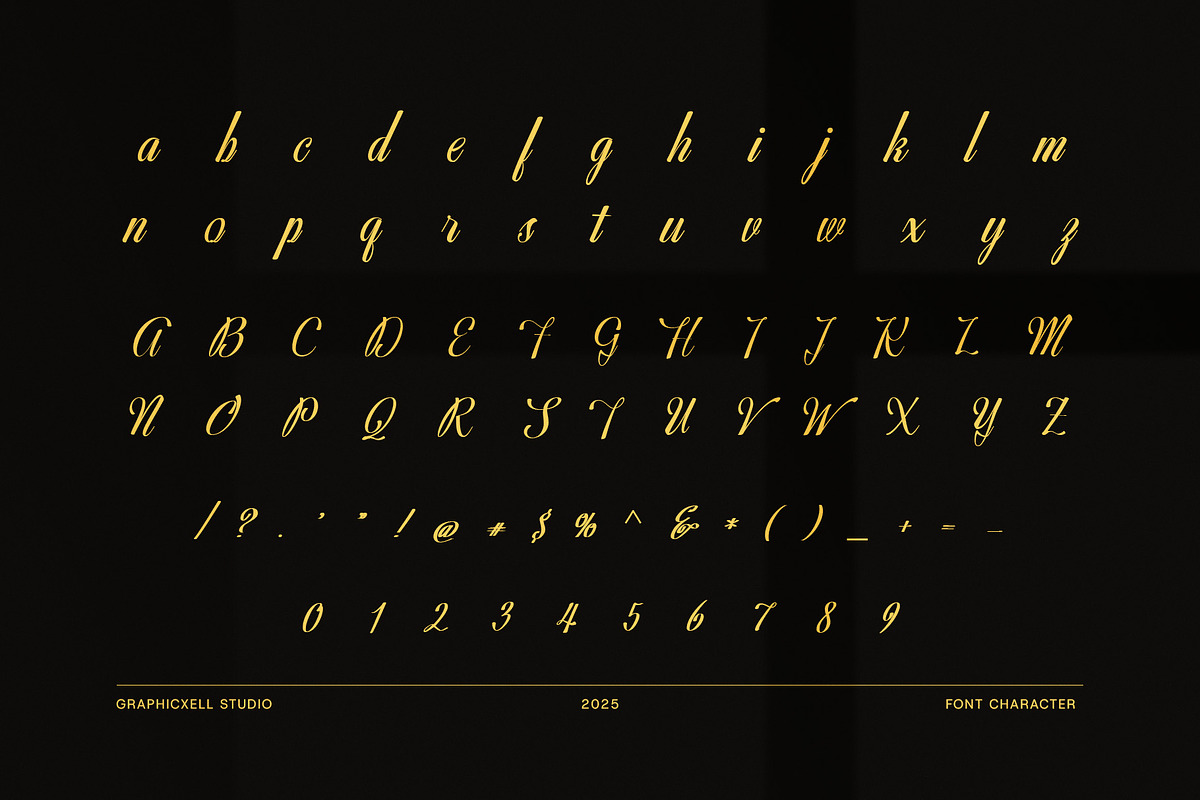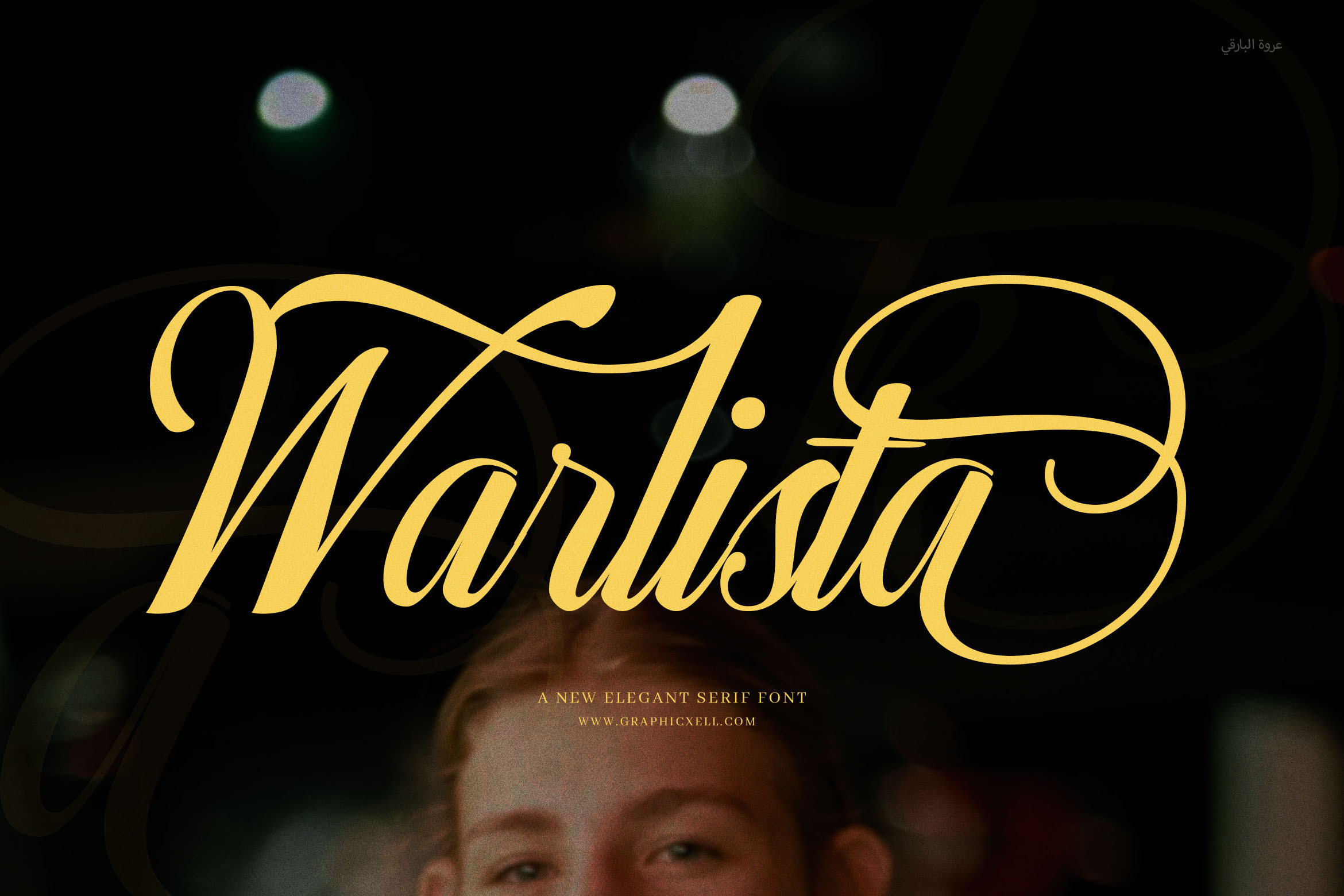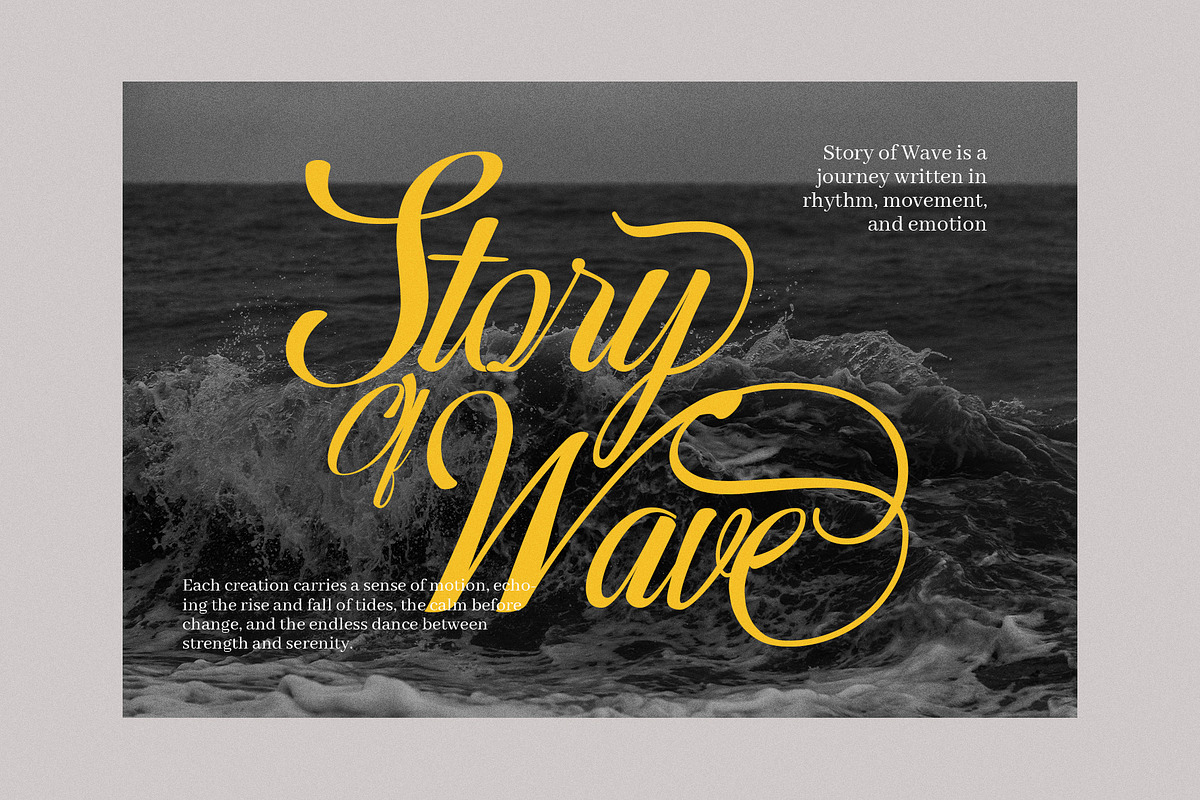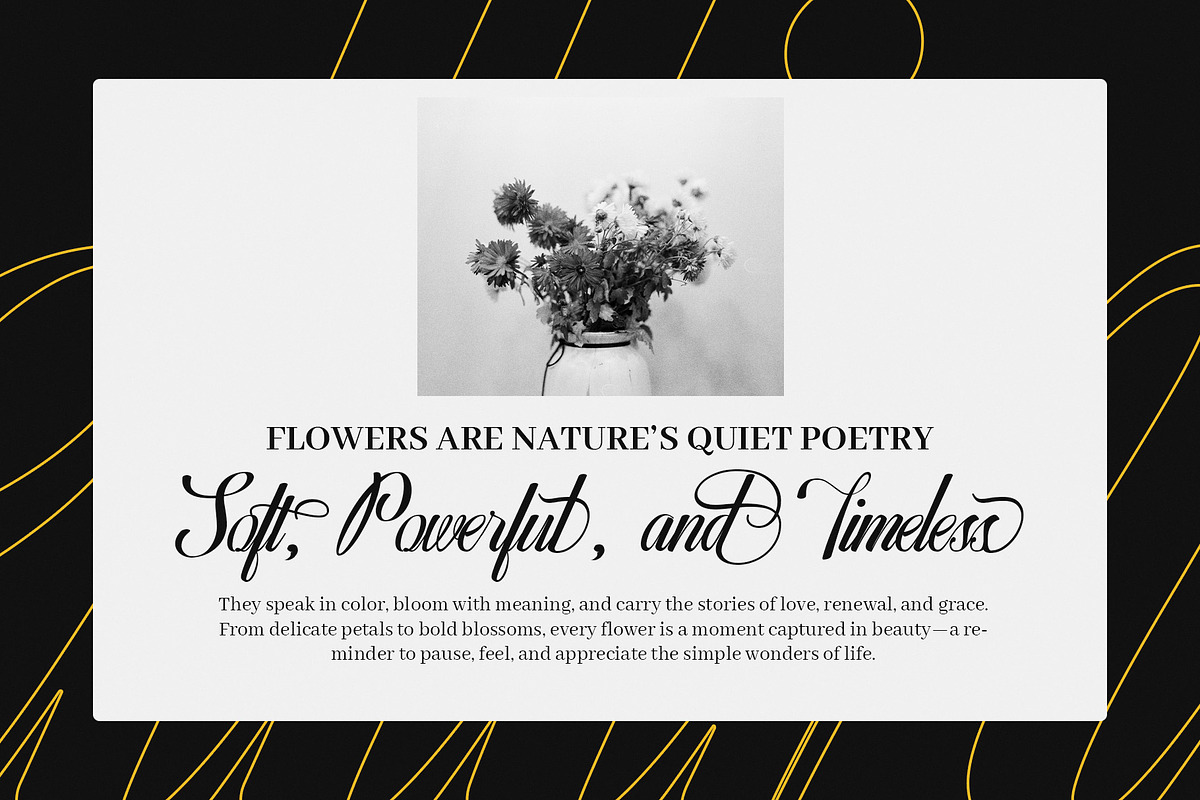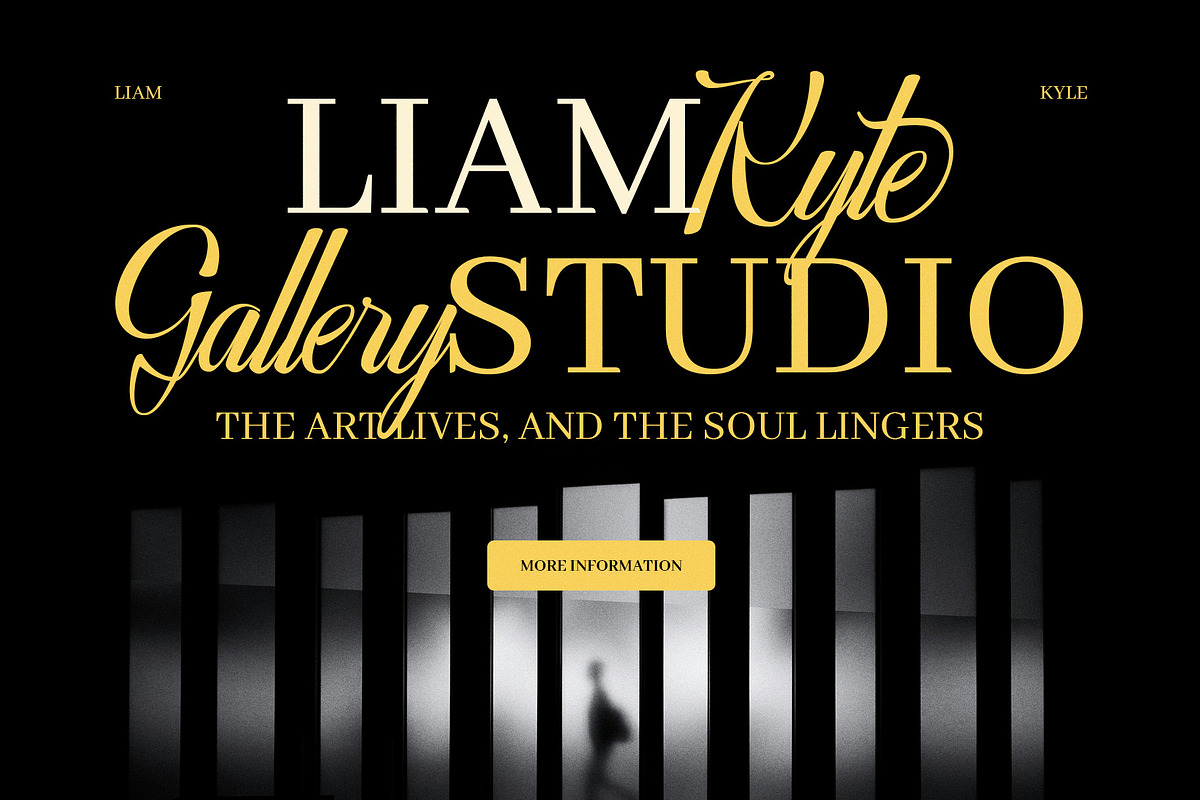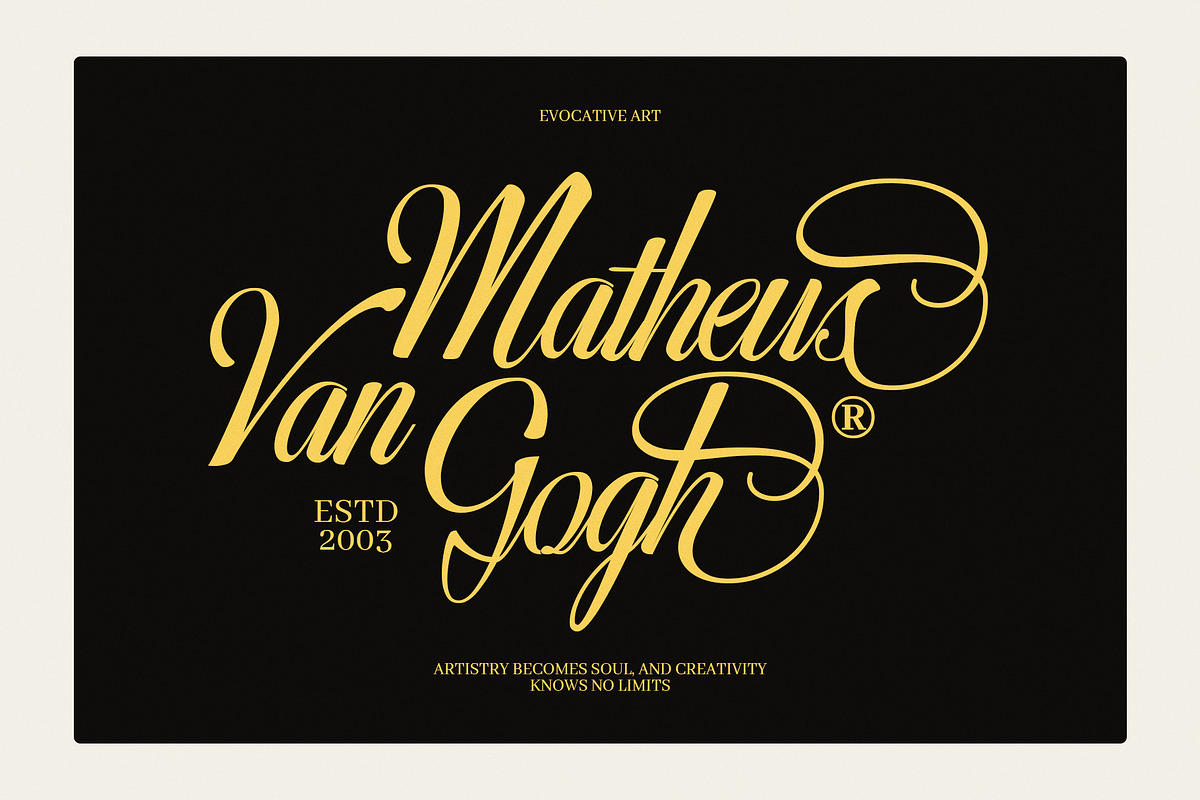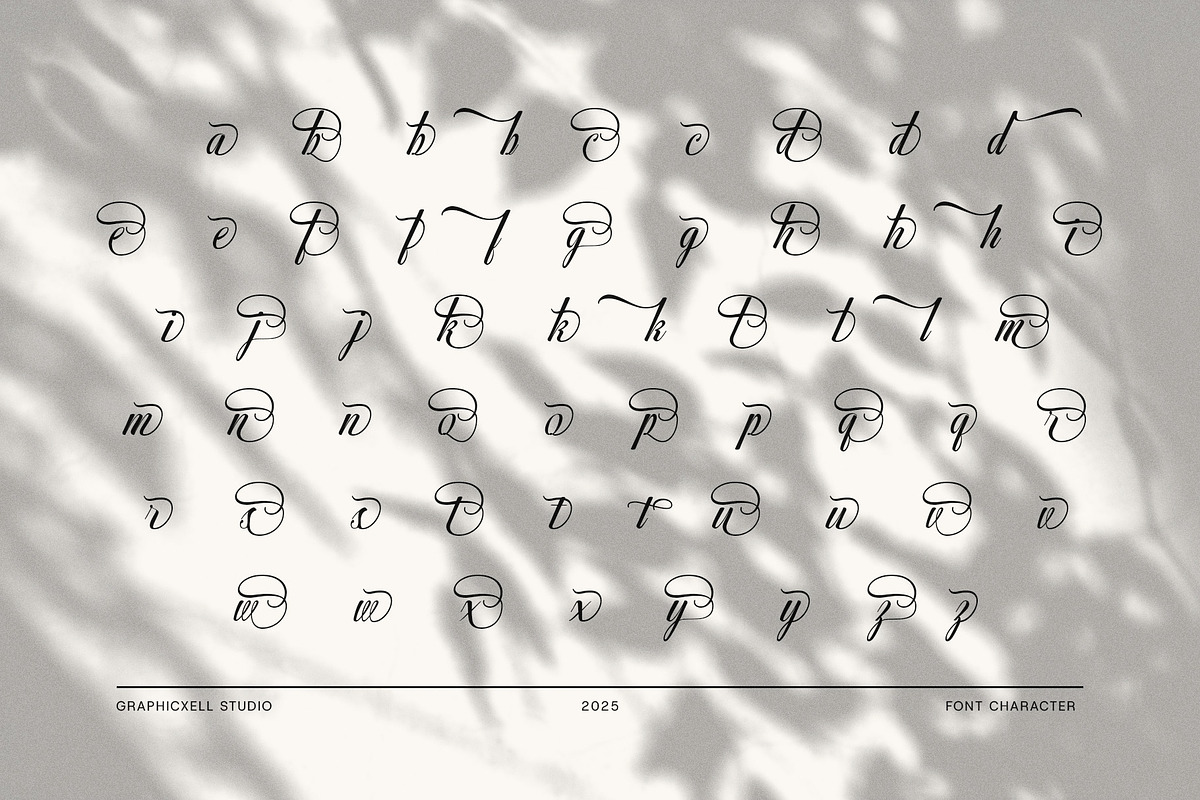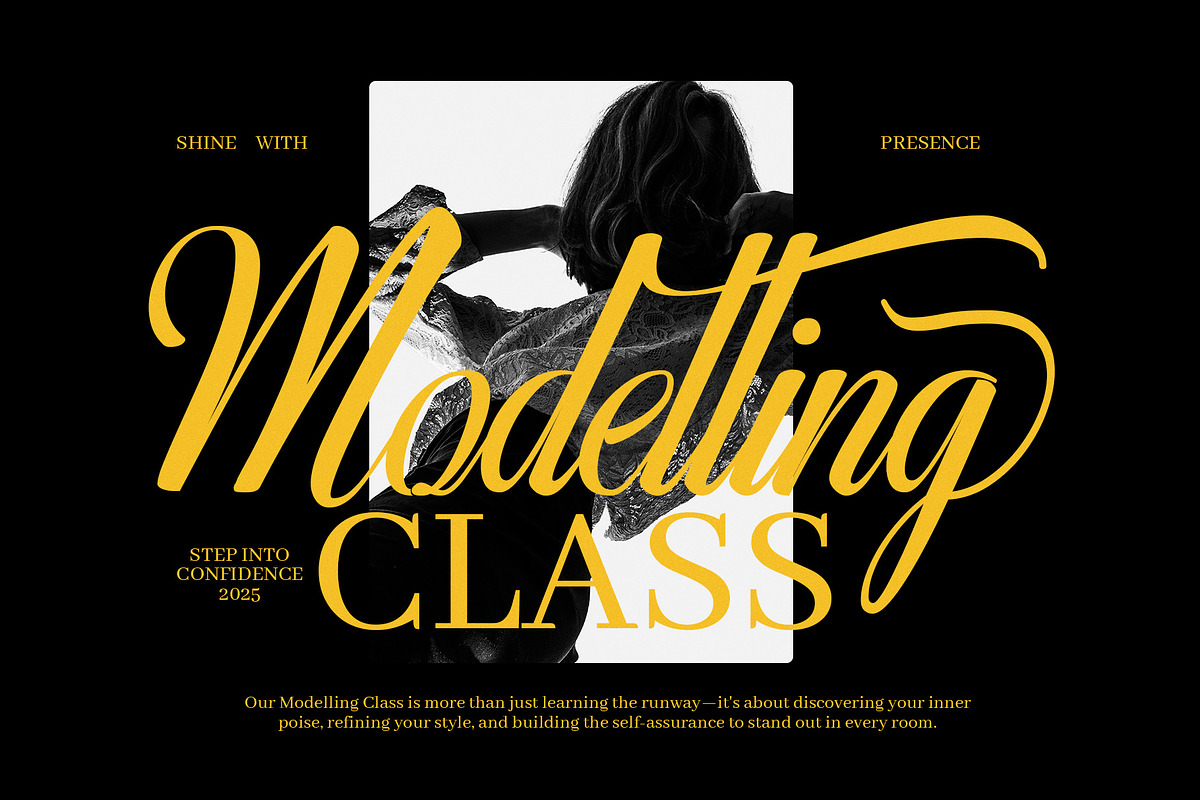
Warlista Wedding Script Font
Introducing Warlista Wedding Script Font, a stylish and elegant script font designed to bring beauty, charm, and luxury to your design projects. With its graceful curves, flowing lines, and a variety of alternate calligraphy characters, this font allows you to create eye-catching, personalized typography that feels both timeless and modern.
Warlista is a perfect choice for wedding invitations, branding, logo design, album covers, magazine layouts, music-themed artwork, and more. Whether you're designing a romantic wedding suite or a high-end fashion label, this font offers a classy touch that elevates every detail. It also works beautifully on Canva, websites, business cards, posters, boutique branding, and social media posts.
The font includes many alternate letters and ligatures, making it easy to create natural, stylish compositions without extra design software. From elegant script titles to feminine branding elements, Warlista’s flexibility is what sets it apart.
Elegant and classy script with a modern calligraphy look
Includes many alternate characters and stylish ligatures
Perfect for weddings, logos, branding, and invitations
Works well for both digital and print designs
Enhance your creative work with the beauty and professionalism of the Warlista Wedding Script Font. Whether you’re a designer, brand owner, or creative entrepreneur, this font adds the elegance your project deserves.